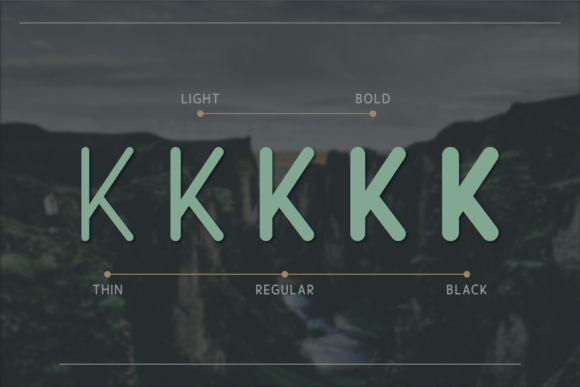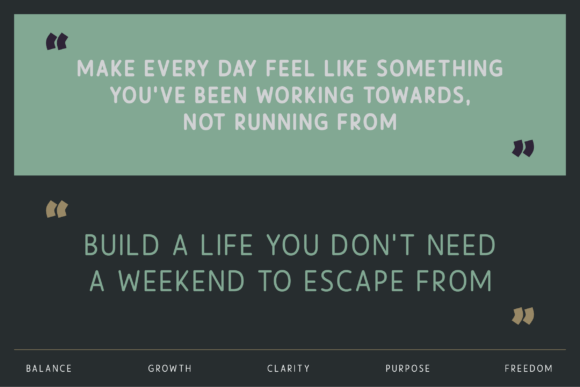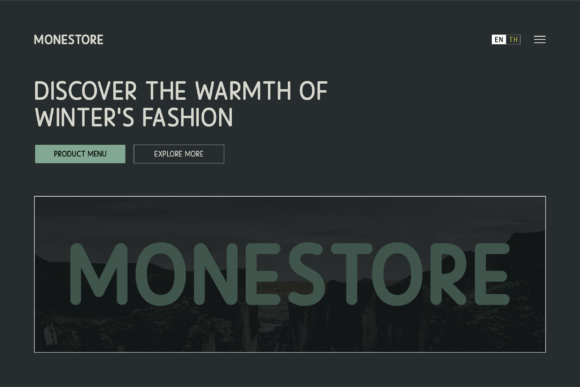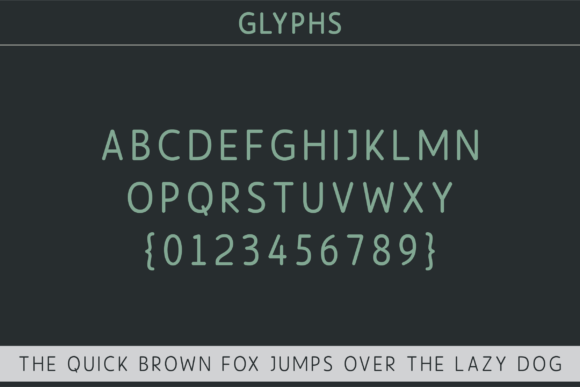
Introduction to Museful Rounded Font
Have you ever stared at a blank canvas, waiting for inspiration to strike? As creatives, we’ve all been there – desperate for that one design element that will bring our project to life. For me, it’s often a font that sets the tone and guides the direction of my work. That’s why I’m excited to share with you the Museful Rounded Font, a game-changing addition to any designer’s toolkit.
This modern sans serif font family is more than just a pretty face – it’s a reliable partner for creating high-quality visual identities. With its soft-rounded edges and sleek, geometric construction, Museful Rounded Font is both highly legible and aesthetically balanced. Whether you’re working on a free download, a social media campaign, or a high-impact headline, this font family adapts beautifully while adding a polished, confident touch.
Key Features of Museful Rounded Font
- High-quality typography with smooth rounded edges, ideal for creative projects that require a friendly and approachable tone.
- Includes a range of weights and styles, from light to bold, to cater to various design needs and creative projects.
- Perfect for branding, logos, and other design elements where a rounded and friendly font is desired.
Honest Review: Museful Rounded Font
I recently had the chance to work with the Museful Rounded Font and I’m excited to share my thoughts on this design resource. As a designer, I’m always on the lookout for high-quality fonts that can elevate my creative project. Museful Rounded Font definitely delivers.
Here’s what I liked about this font:
- ✨ The Museful Rounded Font features a beautiful, rounded design that works well for modern and minimalist designs.
- ✨ The font is available in various weights, making it easy to use for titles, headings, and body text.
- ⚠️ The font may not be suitable for projects that require a more formal or traditional look.
Overall, I’m impressed with the Museful Rounded Font. It’s a versatile and high-quality design resource that can be used for a wide range of creative projects. I’d definitely recommend it to fellow designers looking for a reliable and free font download.
Museful Rounded Font is ideal for creative projects, such as branding, marketing materials, and social media graphics. Its high quality design and transparent background make it perfect for designers who want to create visually appealing and professional-looking designs.